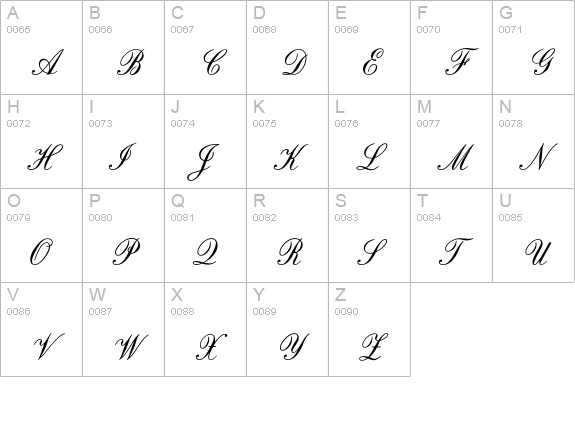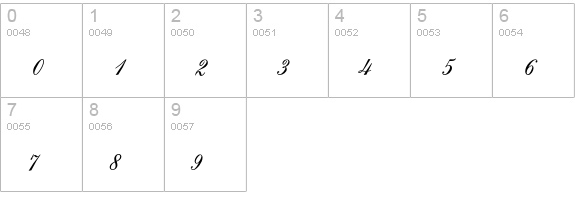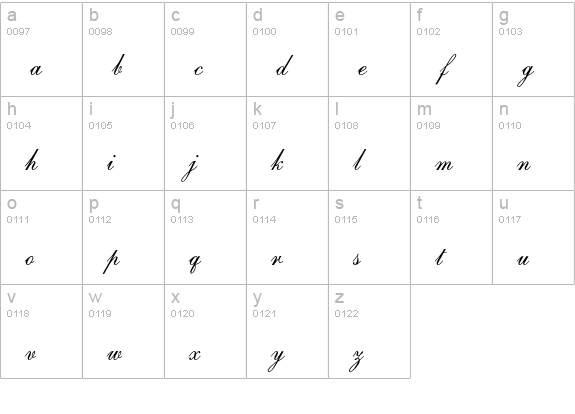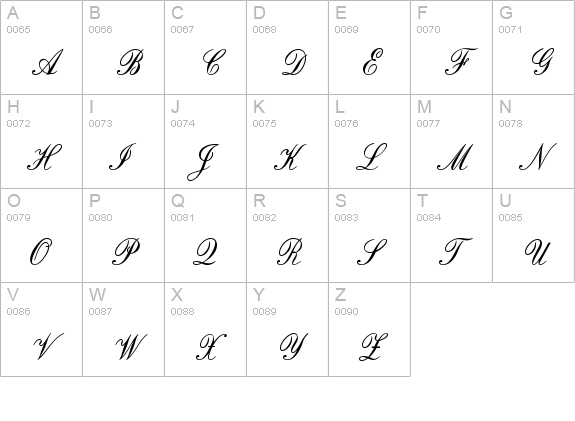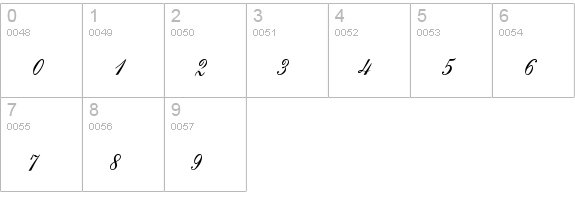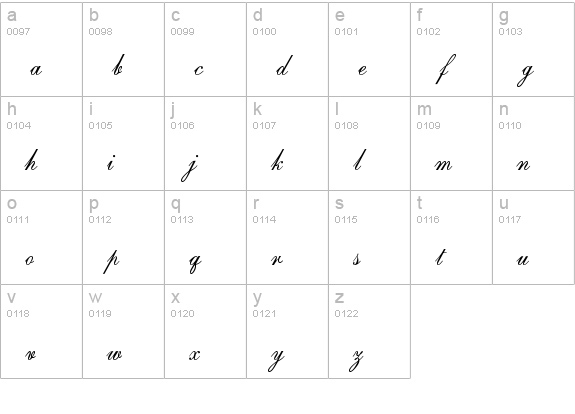
Original Script Std is a charming and elegant font that exudes a sense of sophistication and grace. With its flowing strokes and delicate curves, this font is perfect for adding a touch of class to any design project. Whether you're creating wedding invitations, business cards, or social media graphics, Original Script Std is sure to make a lasting impression. What's even better is that Original Script Std is completely free to download at FontsMarket.com. This means you can access this beautiful font without having to spend a dime. So why wait? Download Original Script Std today and elevate your designs with this stunning typeface.